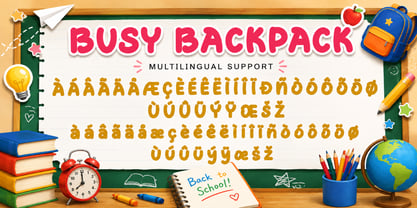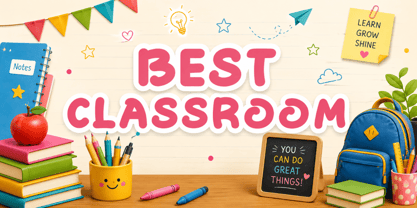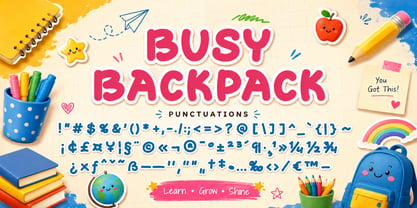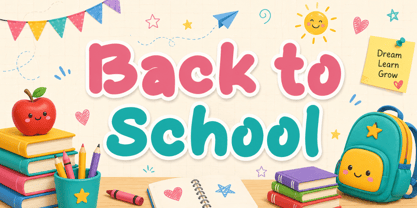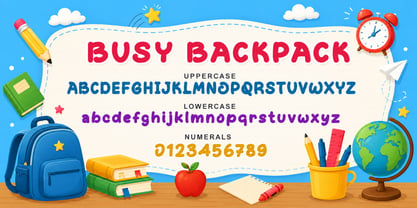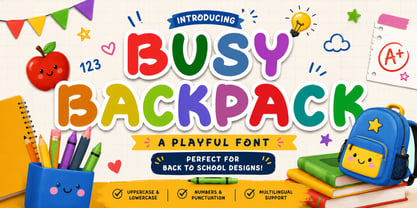
Busy Backpack
by Yoga Letter
The Busy Backpack Font Family was designed by Isroni Yoga Prasetya and published by Yoga Letter. Busy Backpack contains 1 styles. More about this family
Busy Backpack is a cheerful and playful display font designed to infuse fun and creativity into any project. Its bold, rounded letters are ideal for back-to-school themes, classroom decor, kids' crafts, and educational designs. The font includes uppercase and lowercase letters, numbers, punctuation, and multilingual support. Transform your designs into bright, friendly, and unforgettable creations with this adorable font that inspires learning and imagination.
Designers: Isroni Yoga Prasetya
Foundry: Yoga Letter